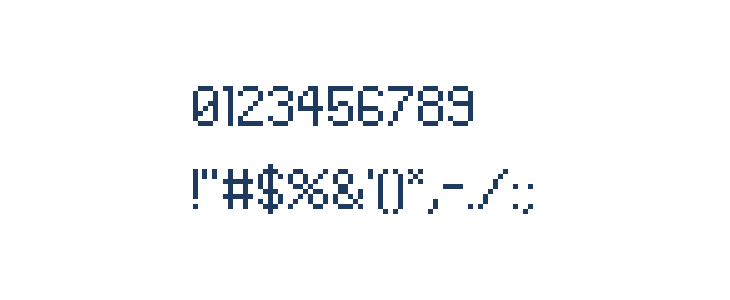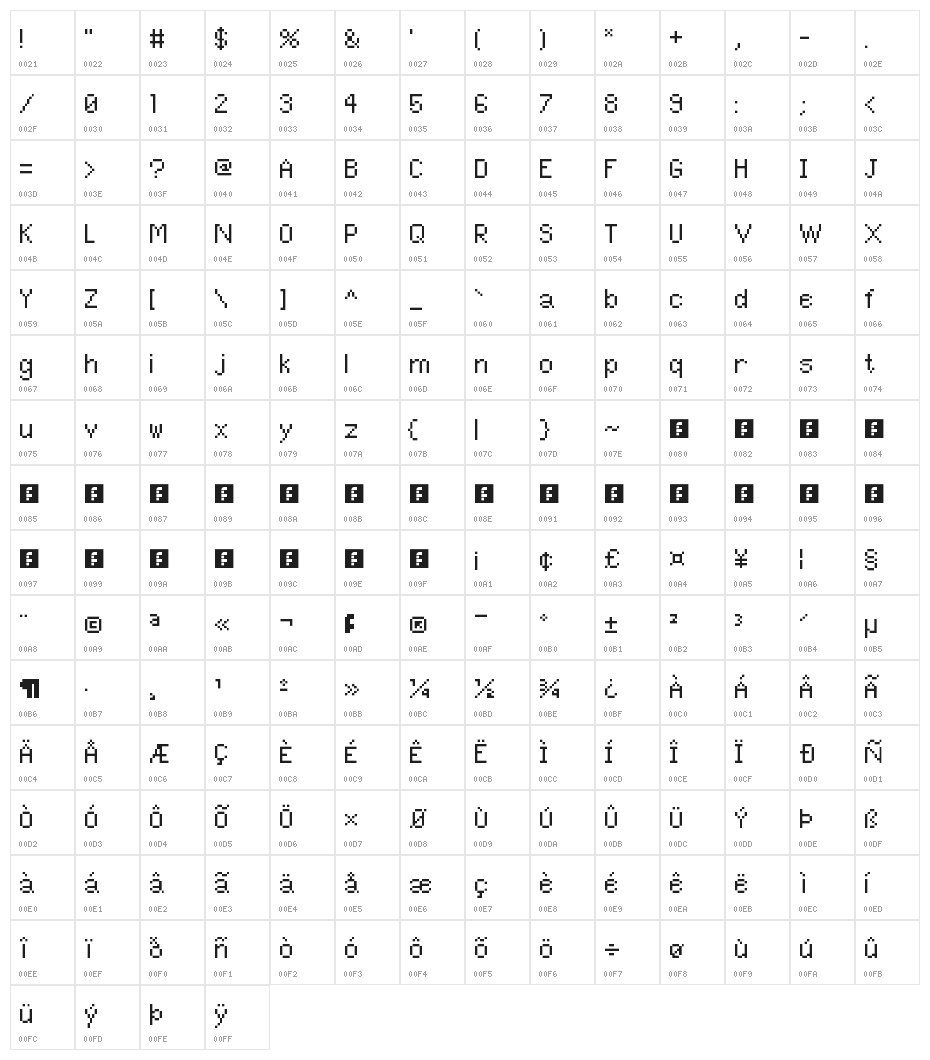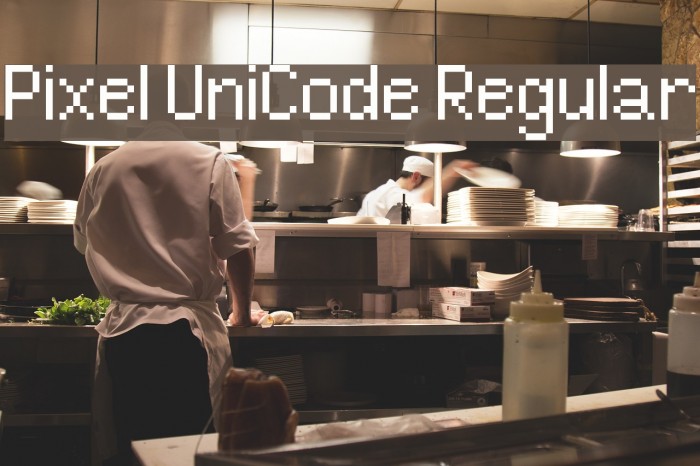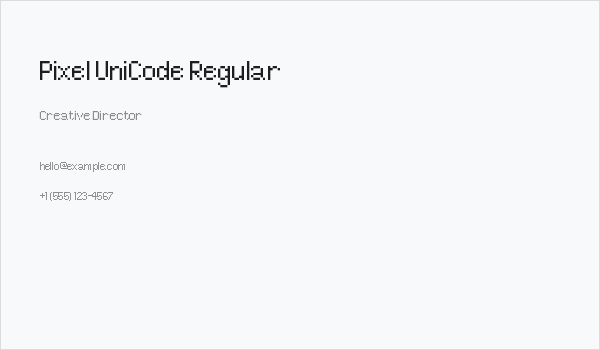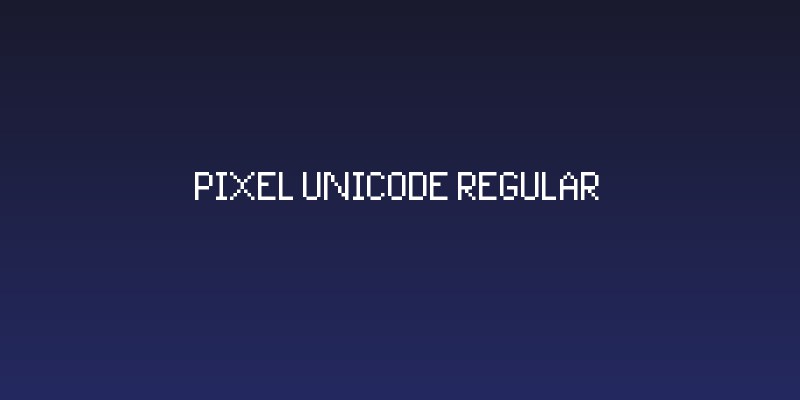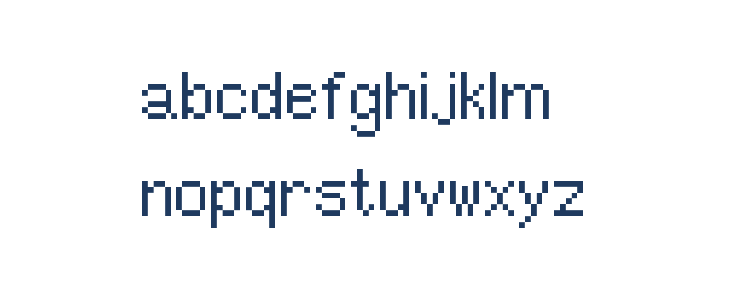
Pixel UniCode Regular Font
Pixel UniCode Regular Description
This font features a pixelated, blocky design reminiscent of early digital displays and retro video games. Each character is constructed with a uniform grid-like structure, giving it a distinctly digital and nostalgic feel. The uppercase and lowercase letters maintain a consistent height, while the numerals and special characters align seamlessly with the overall aesthetic. The font's simplicity and geometric precision make it ideal for projects that aim to evoke a sense of nostalgia or a retro digital theme. Its clarity and straightforwardness ensure readability even at smaller sizes, making it versatile for various applications.
| Use Case | Logos, Headlines, Digital displays |
| Proposed Projects | Ideal for retro video game designs, digital art projects, tech-themed branding, and nostalgic merchandise. |